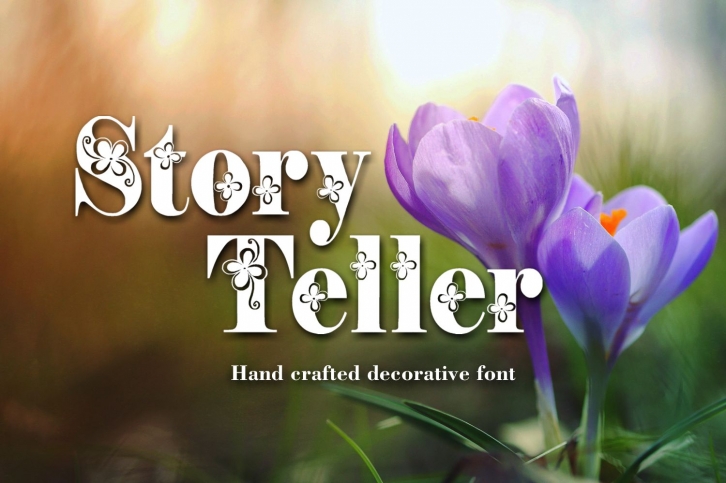
Storyteller is a great font that was designed by Digital Typeface Studio. Imagine the amount of combinations you can create using this font! The archive is 7.87 MB and it was released on August 8, 2017. Storyteller looks beautiful on wedding invitations, greeting cards, logos, posters, labels, t-shirt designs, logos, business cards and is perfect for use in ink or watercolor works, fashion, magazines, packaging and food menus, children's books and more!